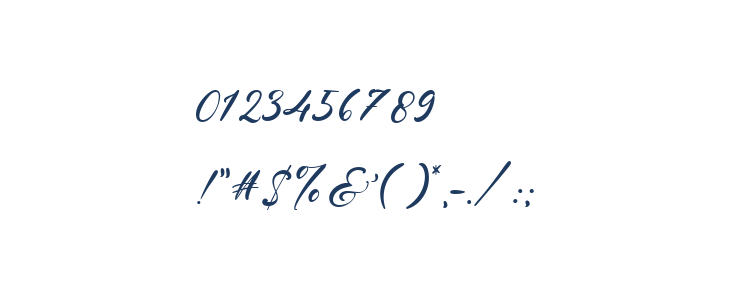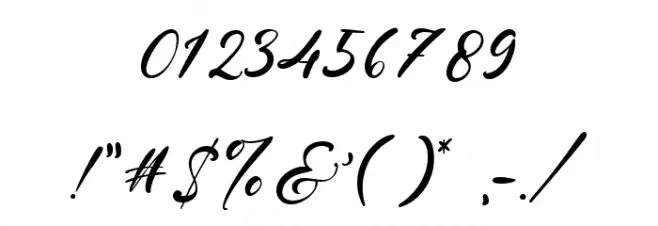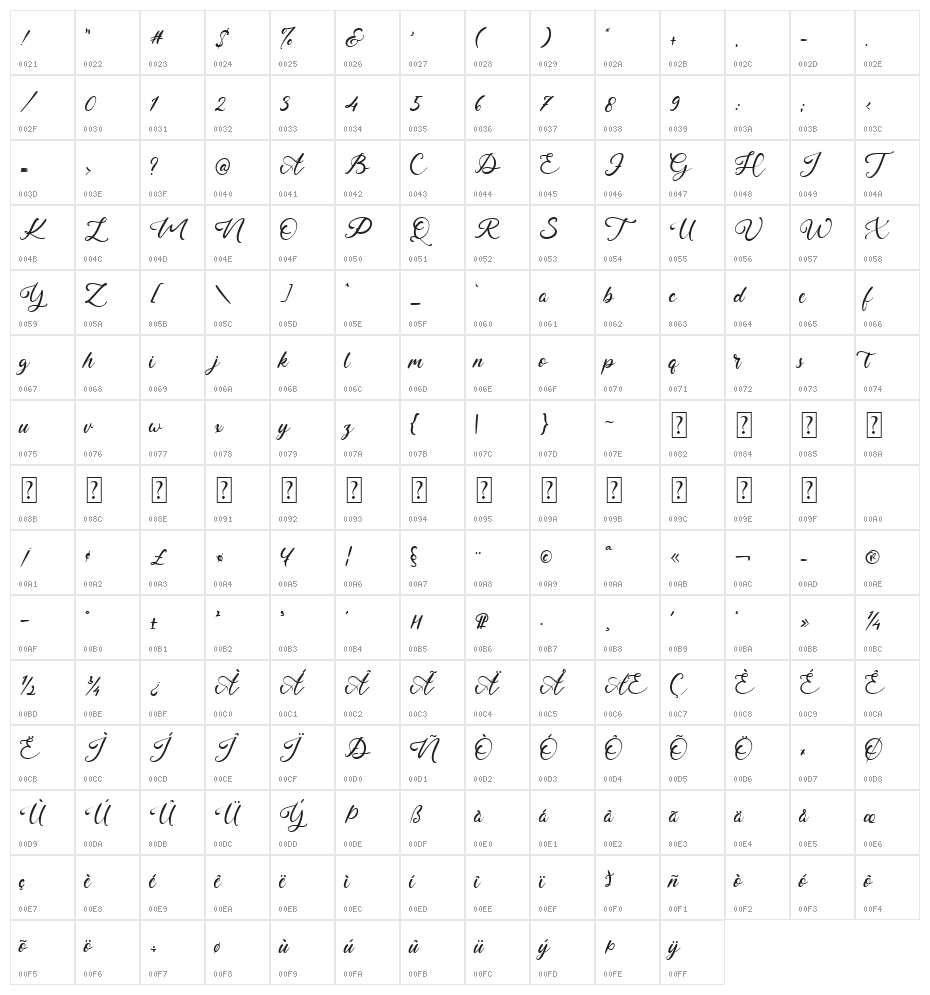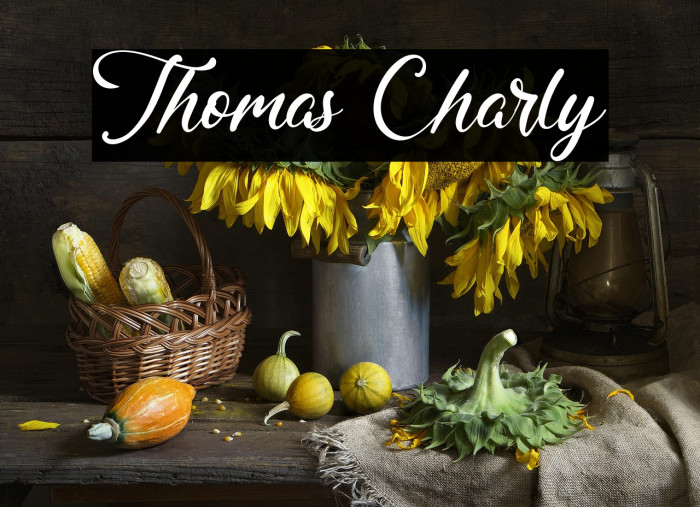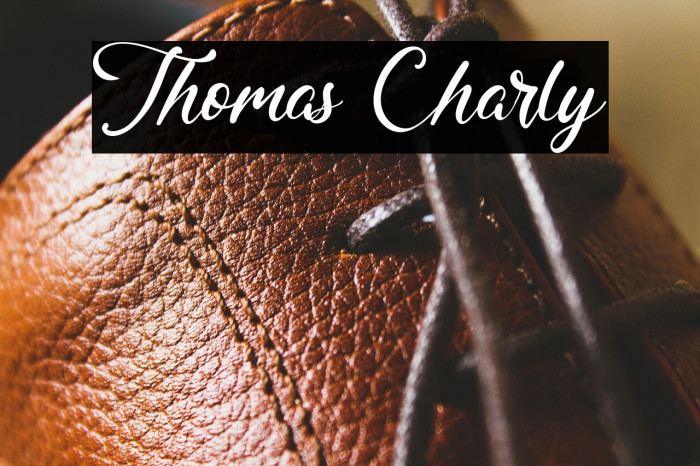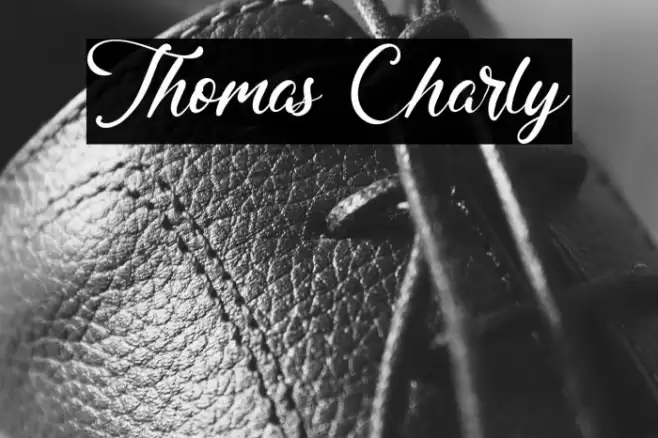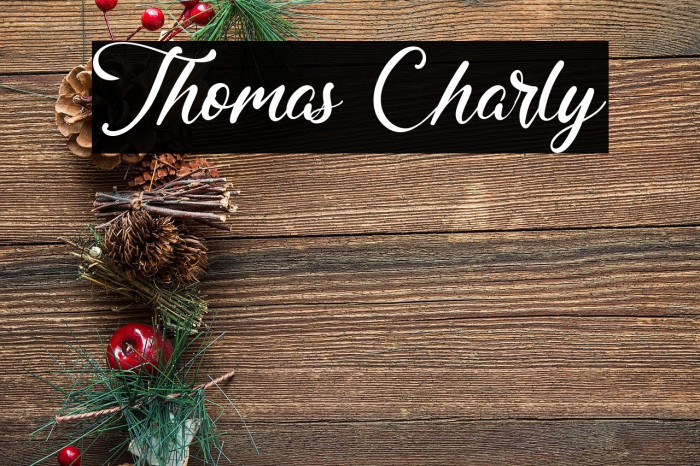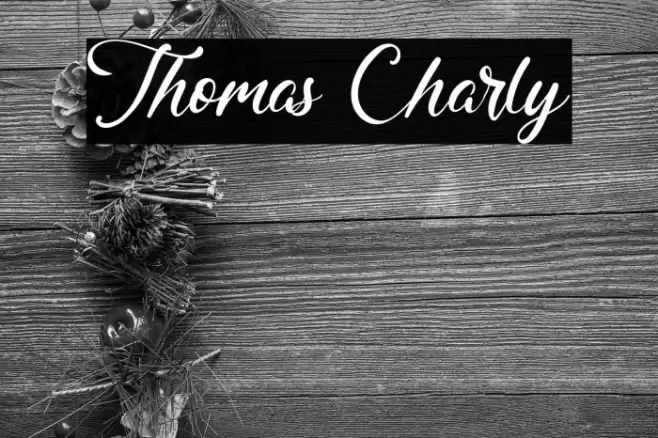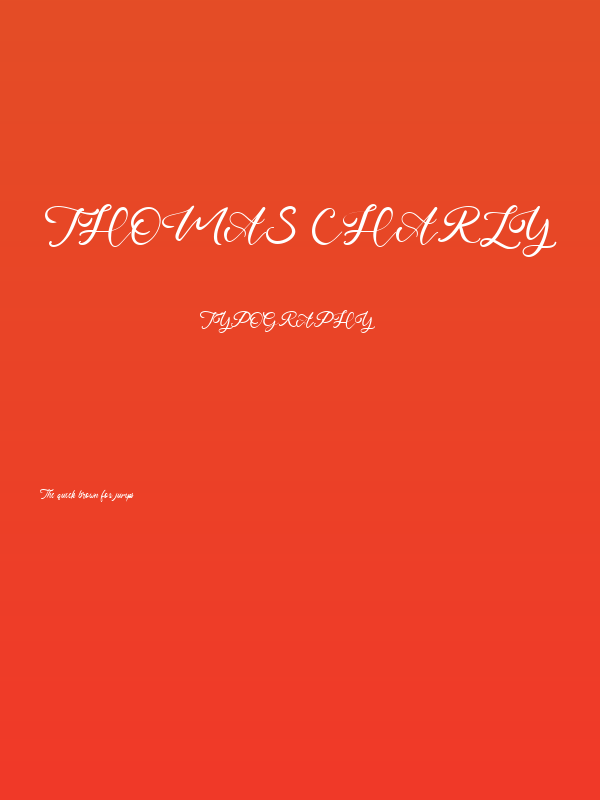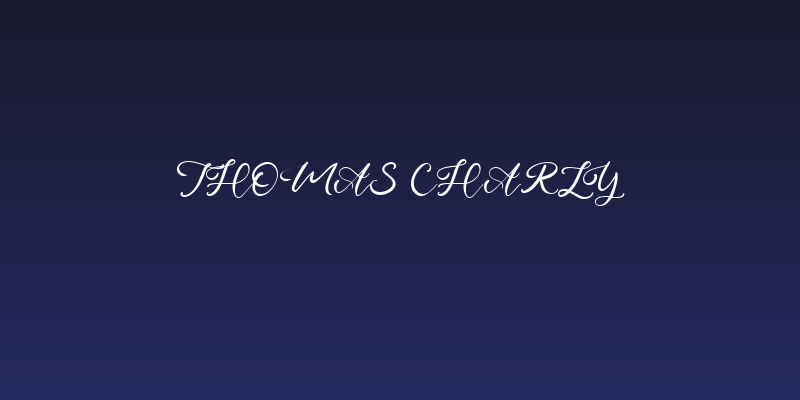
Thomas Charly Font
Thomas Charly Description
This elegant script font features a flowing, cursive style with intricate loops and flourishes that give it a sophisticated and artistic appearance. The uppercase letters are ornate, with sweeping lines and decorative elements, while the lowercase letters maintain a smooth, connected flow that enhances readability. The numerals are consistent with the script style, offering a cohesive look across all characters. Special characters are designed to complement the overall aesthetic, making this font suitable for creative and decorative applications. Its graceful curves and stylish presentation make it ideal for projects that require a touch of elegance and refinement.
| Proposed Projects | Wedding invitations, greeting cards, branding, and logo design. |